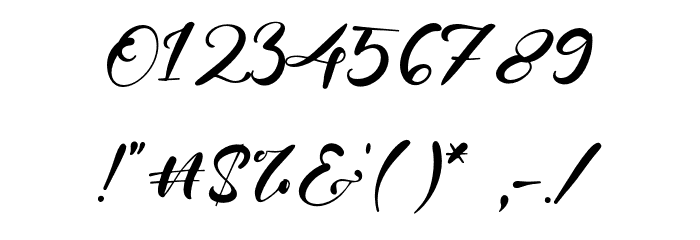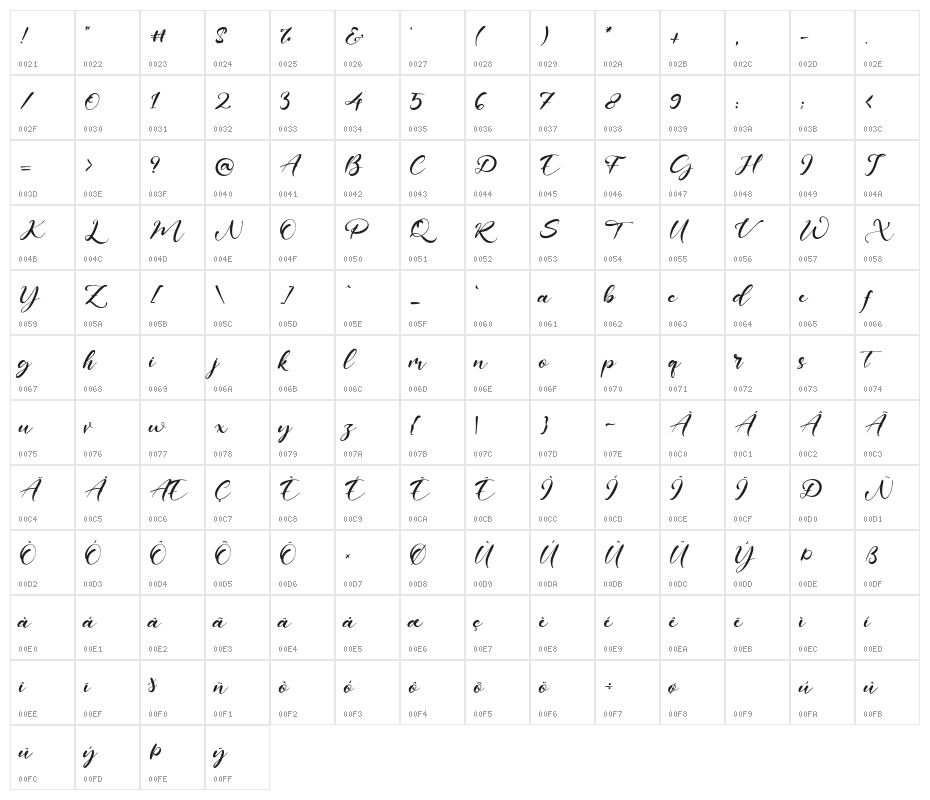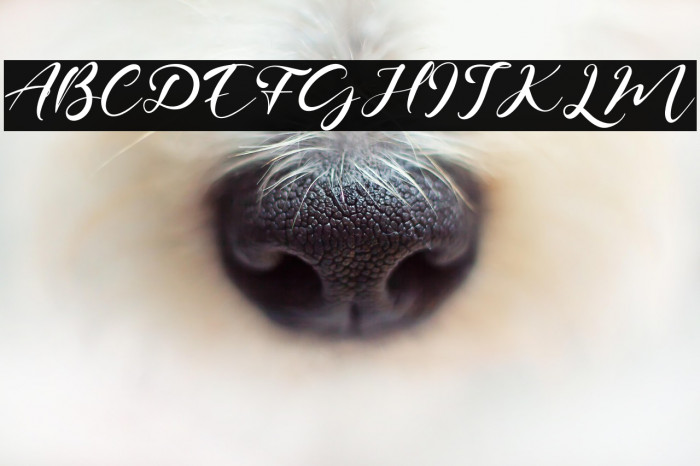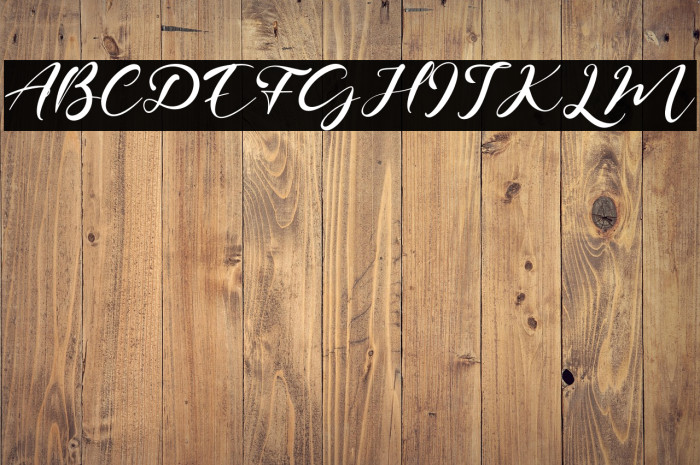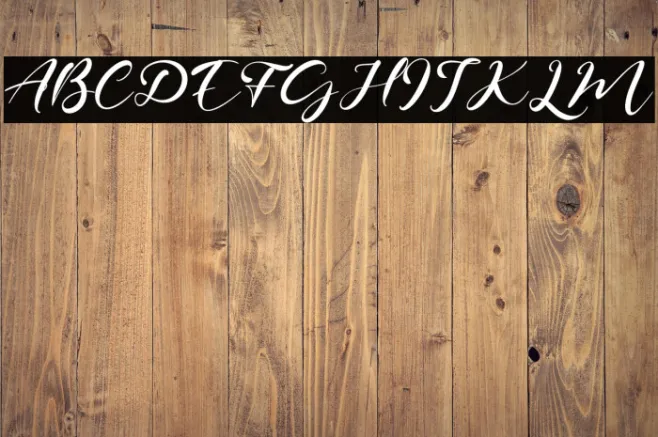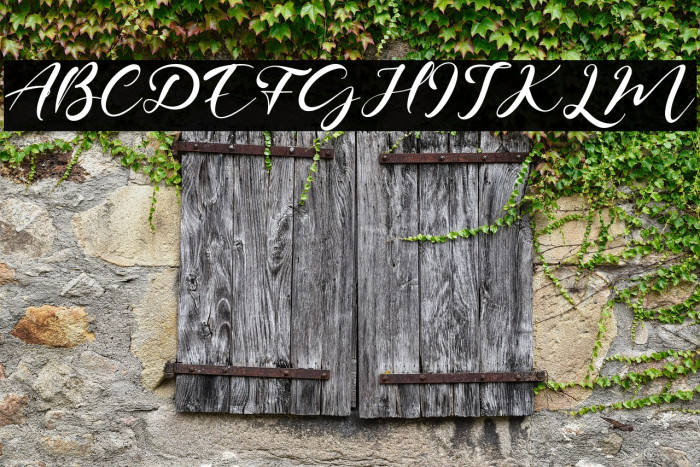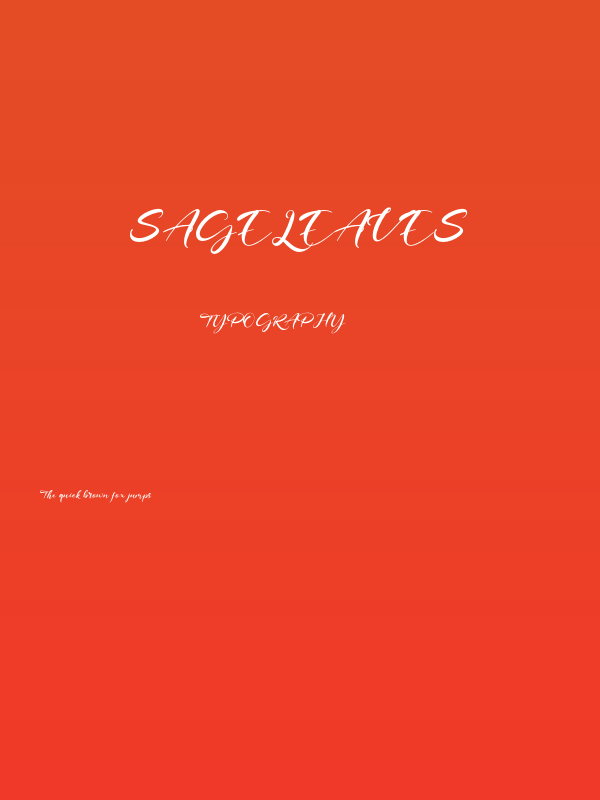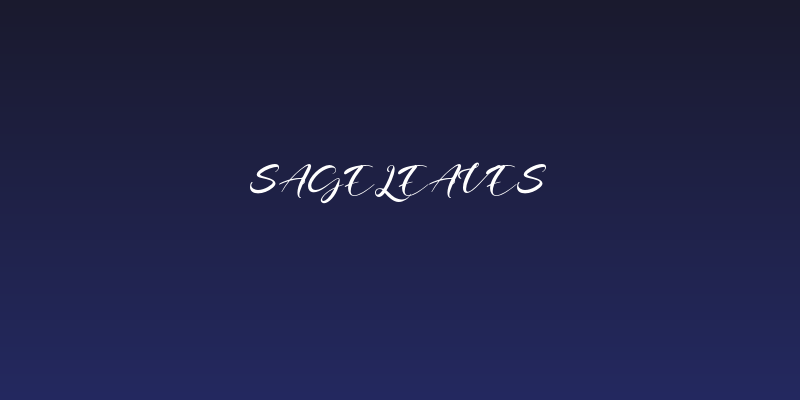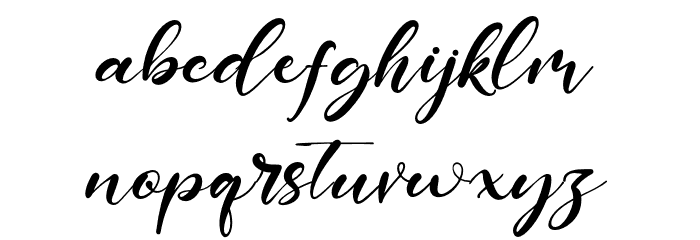
SageLeaves Font
SageLeaves Description
This font features an elegant and flowing script style, characterized by its smooth, cursive letterforms that mimic the fluidity of handwriting. The uppercase letters are slightly more ornate, with sweeping curves and loops that add a touch of sophistication. The lowercase letters maintain a consistent flow, enhancing readability while preserving the artistic flair. Numbers and special characters are designed to match the overall aesthetic, ensuring a cohesive look across all text. The font's design is both modern and timeless, making it versatile for various applications.